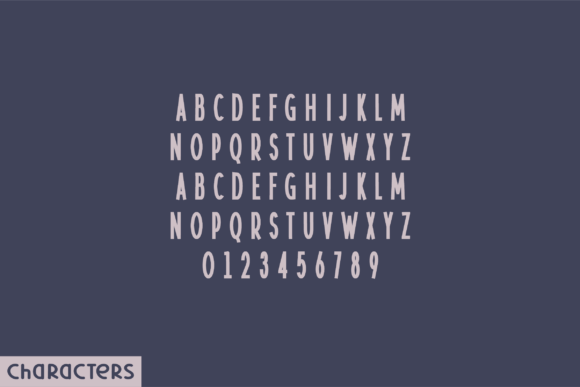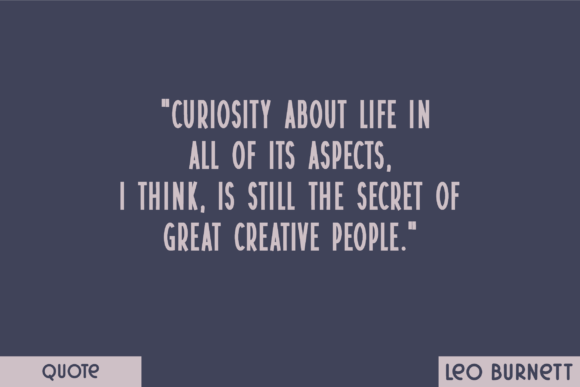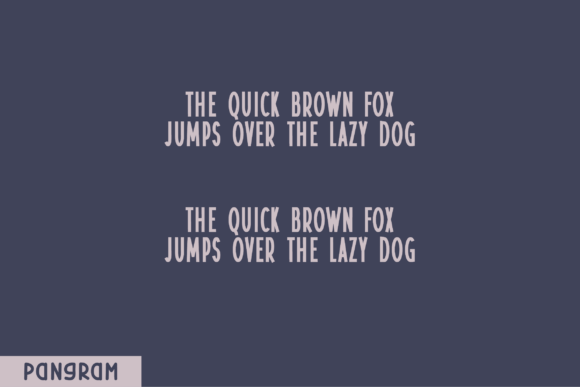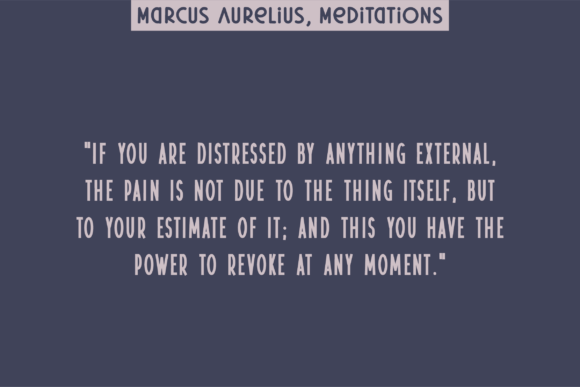
Introduction to Fruthzel Font
Bring a touch of whimsical energy to your creative layout with Fruthzel, a tall display font that balances quirky hand-drawn charm with a structured, condensed silhouette.
This typeface features elongated letterforms with a subtle, irregular rhythm and soft terminals, giving it a friendly, โ€œcut-outโ€ aesthetic With its high-waisted proportions and youthful spirit, Fruthzel is the premier choice for childrenโ€™s book titles, independent food branding, playful social media overlays, and vibrant school-related graphics.
Key Features of Fruthzel Font